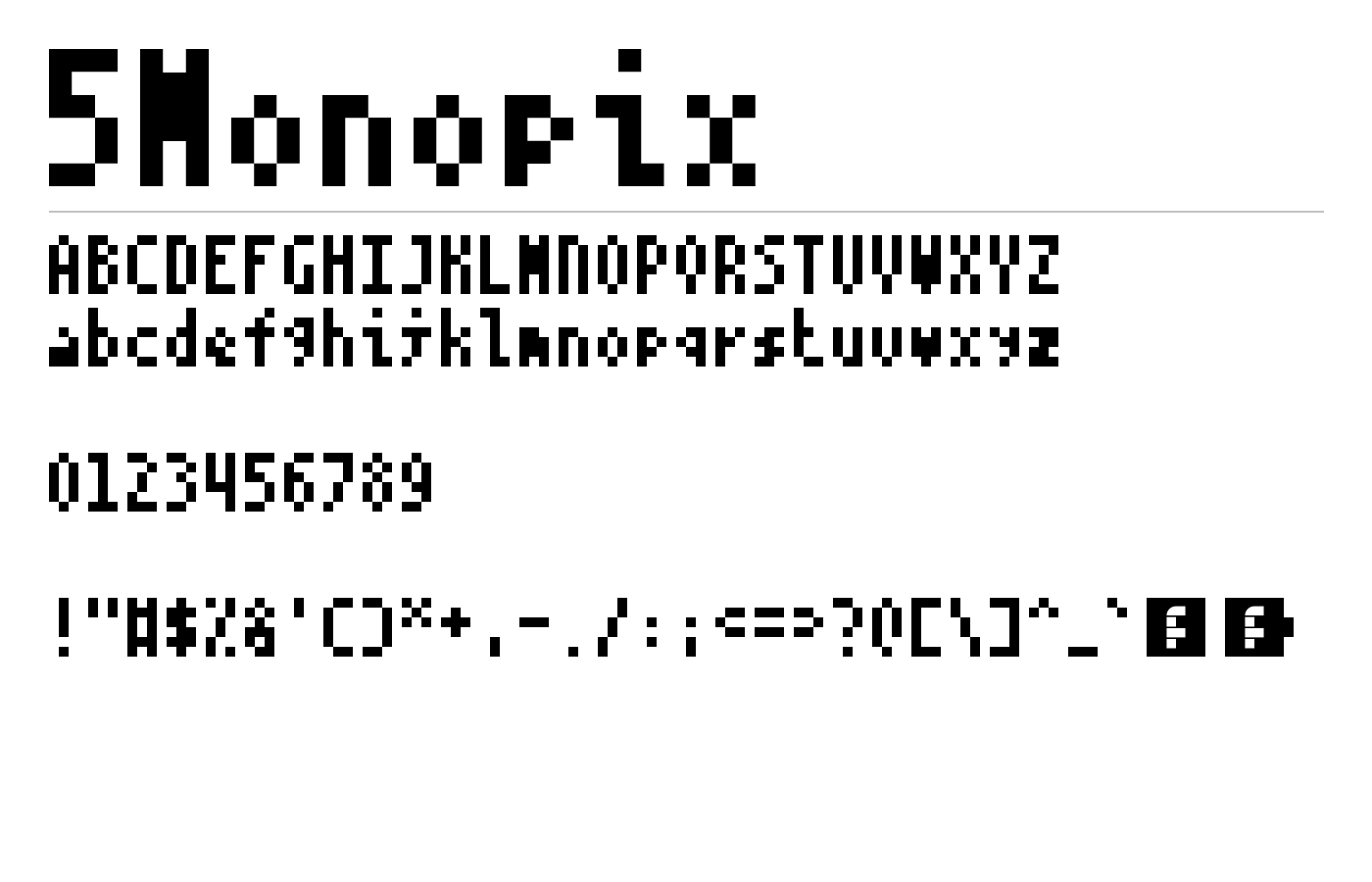
5Monopix is a pixelated, monospaced sans serif font that evokes a retro, digital aesthetic perfect for projects seeking a vintage computer or arcade game vibe. Its blocky, geometric letterforms with uniform stroke weight and tight spacing offer a clean, technical feel while maintaining clear readability at small sizes. This font works best for digital art, video game design, coding interfaces, and any creative use where a nostalgic, pixel-art style is desired.
5Monopix Font